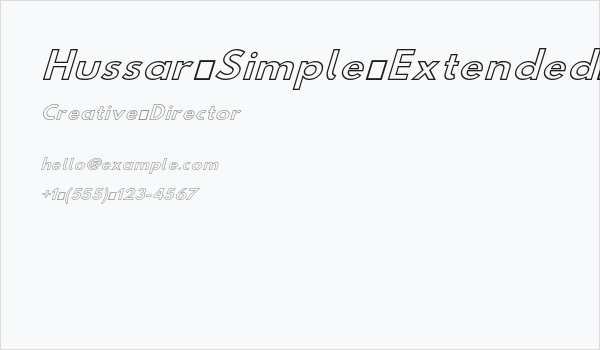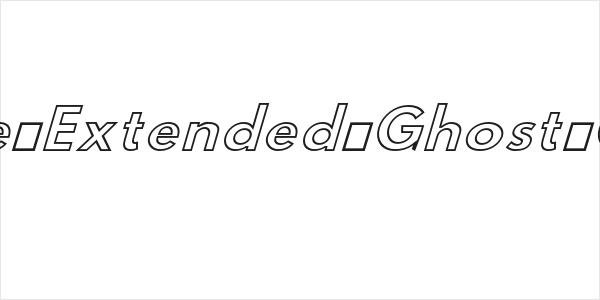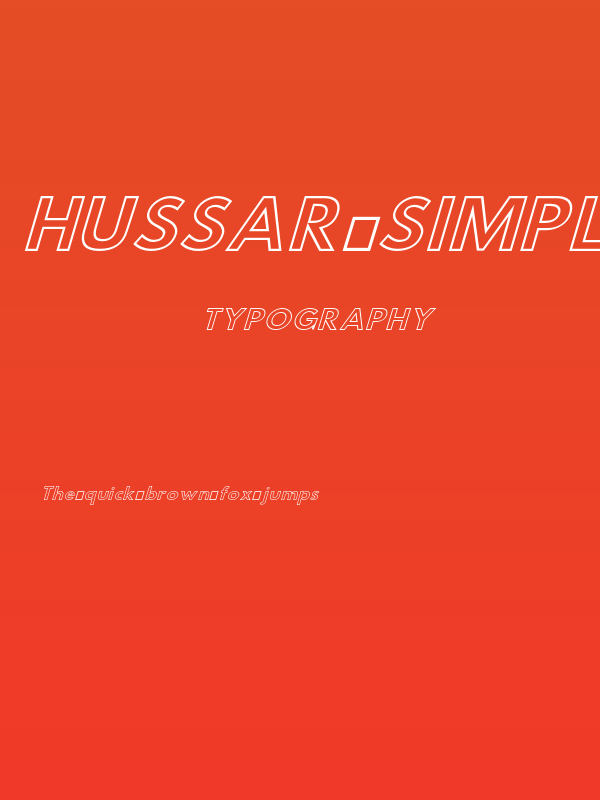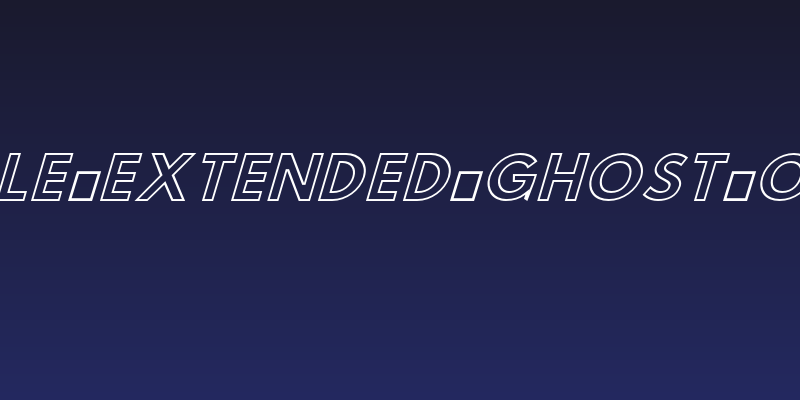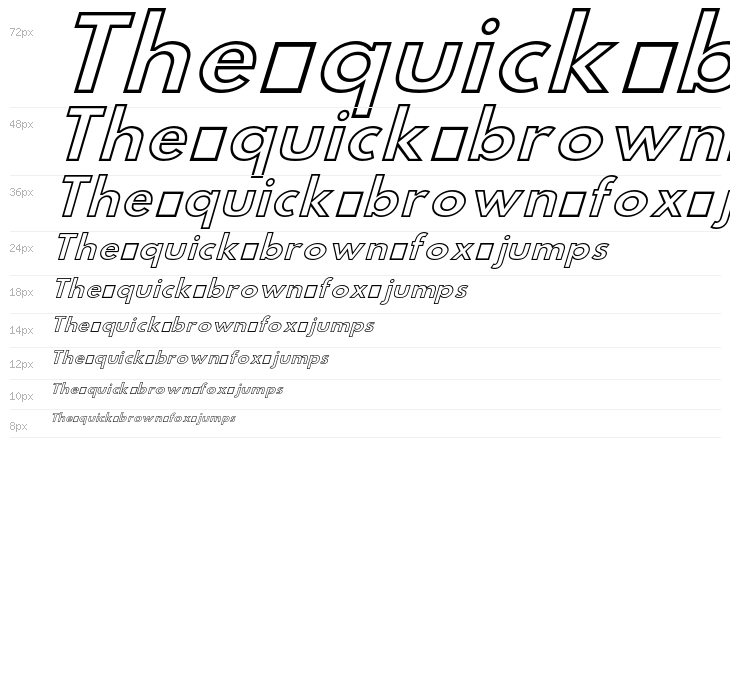
Hussar Simple Extended Ghost Oblique Three Font
Hussar Simple Extended Ghost Oblique Three Description
This font features a modern and sleek design with an oblique orientation, giving it a dynamic and forward-leaning appearance. The characters are outlined, creating a ghostly effect that adds a unique and stylish touch. The extended width of the letters provides a spacious and open feel, enhancing readability while maintaining a contemporary aesthetic. The font's clean lines and minimalistic style make it versatile for various design applications. Its distinct outline and oblique slant make it stand out, offering a fresh take on traditional typography.
| Proposed Projects | Ideal for branding, advertising, and editorial design projects where a modern and distinctive look is desired. |